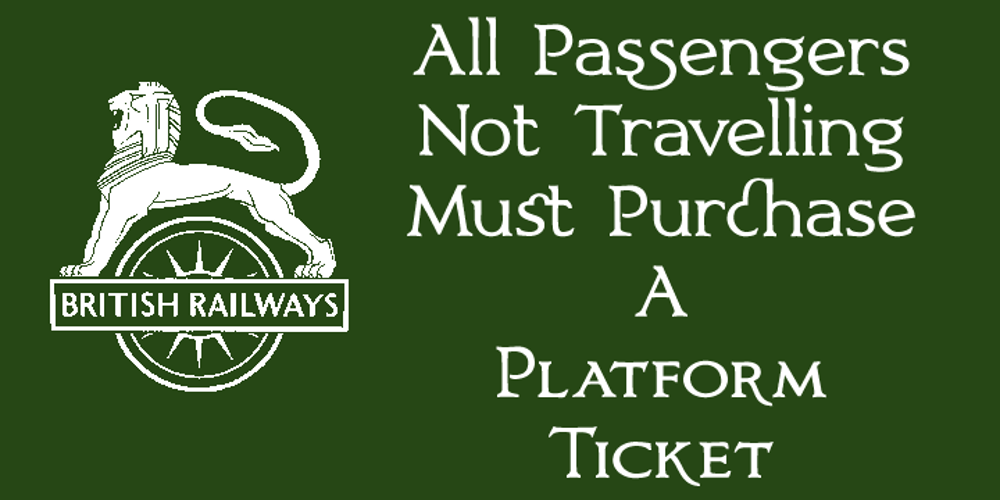
Bronzetti Font Family was designed by Paul James Lloyd and published by Greater Albion Typefounders. Bronzetti contains 22 styles and family package options. A typographic revolution-Bronzetti has been a long term project for Greater Albion Typefounders, aimed at filling a large gap in the range of typefaces available today. The Bronzetti family of 22 text typefaces combines modern requirements for legibility and readability with the charm of traditional Roman faces in the spirit of those carefully constructed by small scale quality foundries such as the Kelmscott and Vale presses. In short, Bronzetti is traditional letterpress meets modern publishing, offering a real opportunity to make your material stand out from today’s ‘run of the mill’ crowd. The range of typefaces on offer includes five widths of type, as well as small capitals and italic forms and regular and bold weights. Try out Bronzetti today, make your work stand out from the crowd and join the revolution!